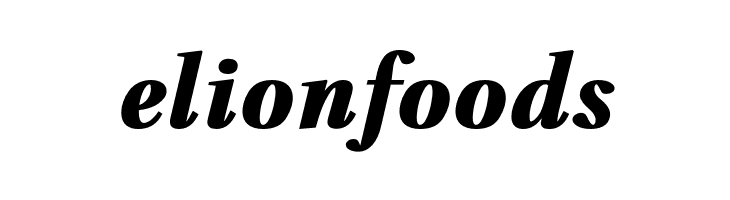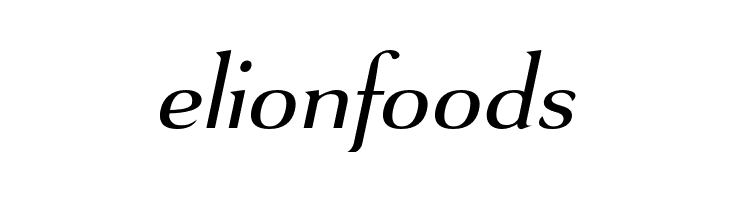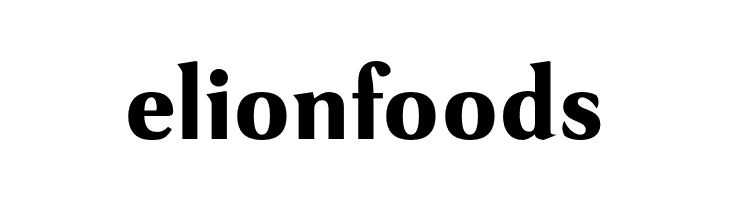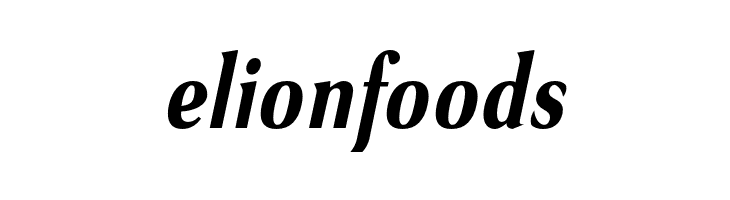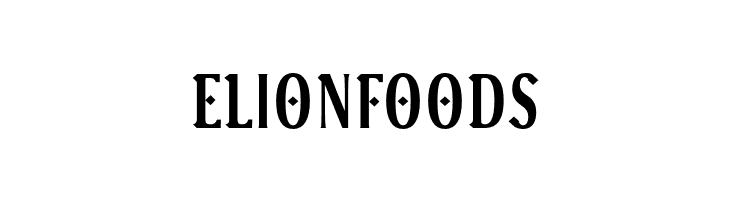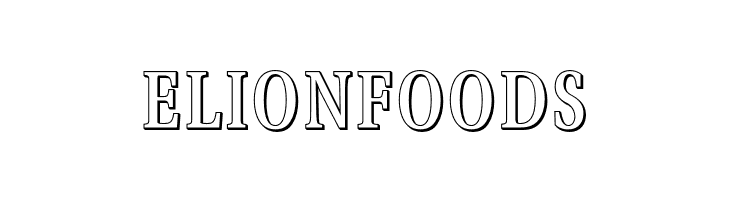
A bold, italic serif typeface with medium contrast and a dynamic presence.
A bold, classic serif font with strong strokes and pronounced serifs.
Elegant italic font with smooth, flowing letterforms and a classic style.
A bold, heavy serif font with a classic and authoritative style.
A bold, italicized font with moderate contrast and a modern yet classic style.
A bold, serif font with a classic and authoritative style.
A bold, decorative serif font with Gothic influences and high contrast strokes.
A refined serif typeface with elegant curves and balanced proportions.
A classic serif font with modern elegance and medium contrast.
A classic serif font with bold strokes and elegant curves.